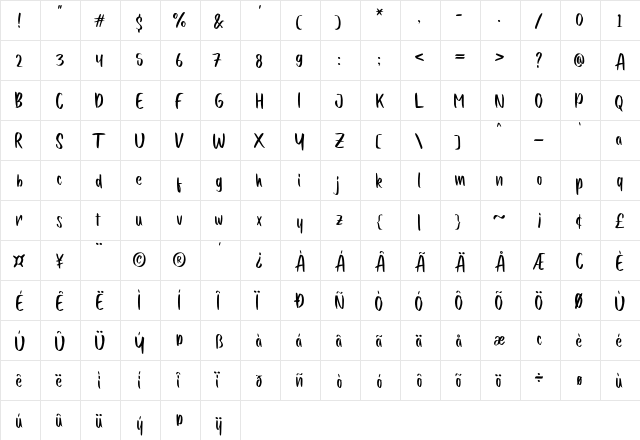
Quicken Regular
| Foundry | Letterhend Studio |
| Designer | Letterhend Studio |
Design Context for Quicken Typeface
Quicken takes a measured approach to typography — its balanced proportions and neutral character make it a reliable workhorse for both digital and print work.